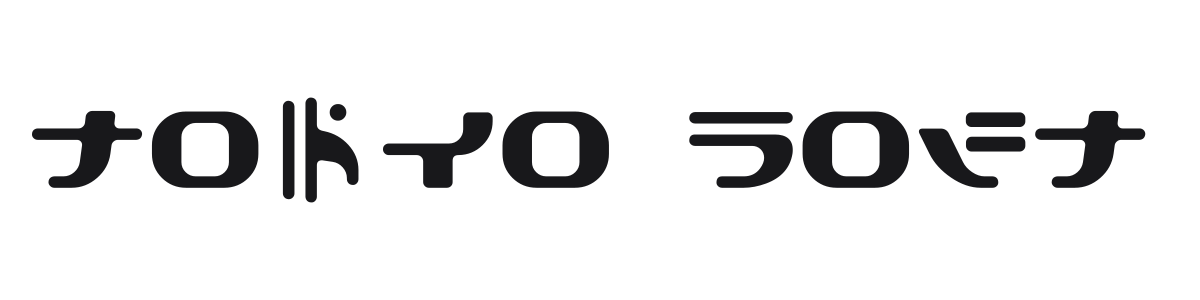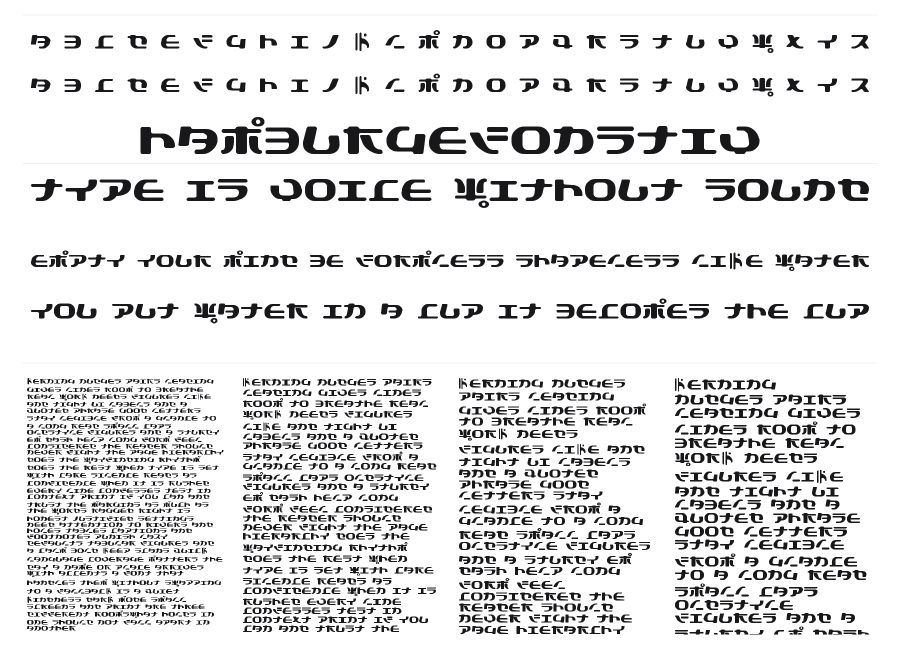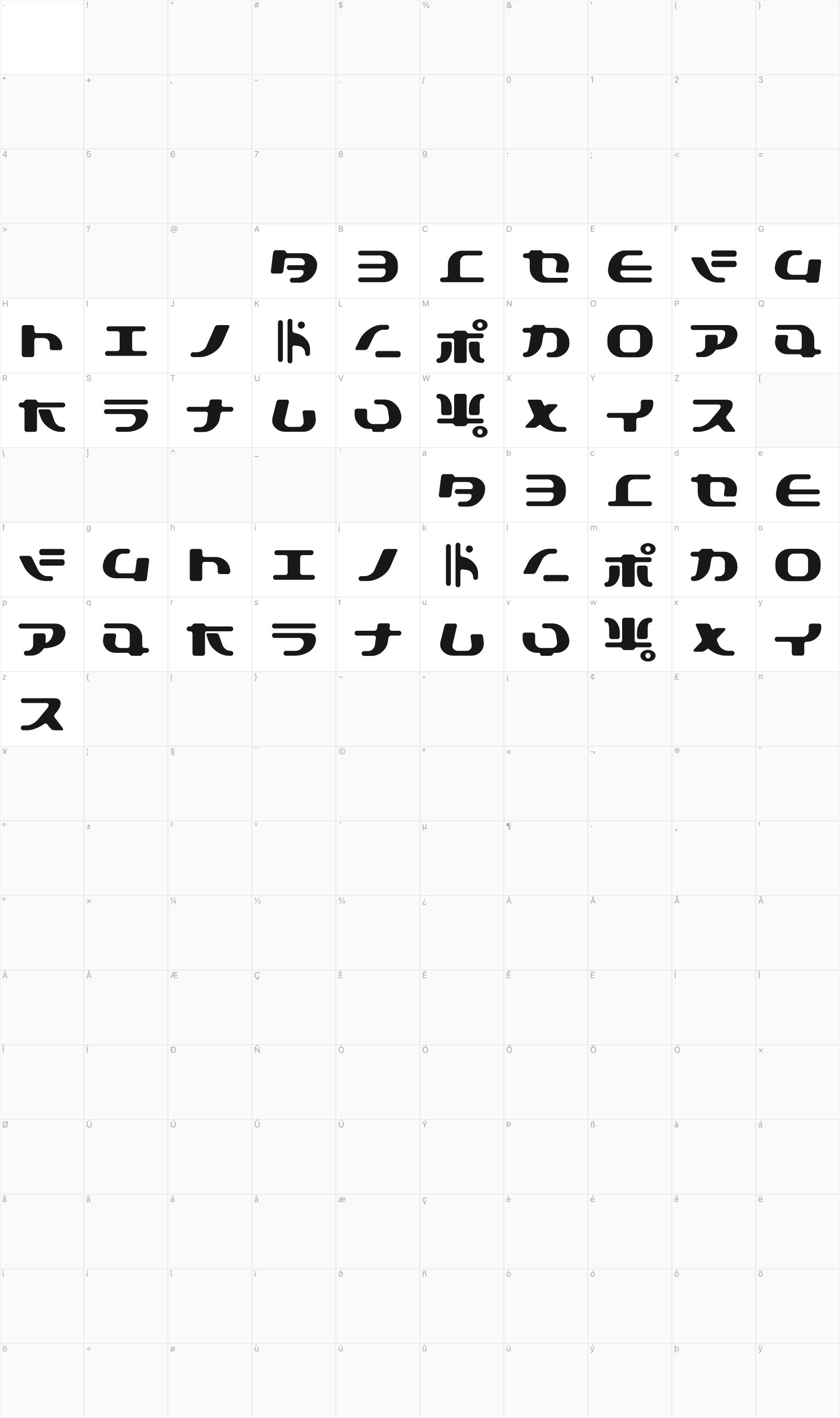
Tokyo Soft
by Shrine Of Isis Font Foudry
Tokyo Soft is a bold novelty display font that imitates the visual rhythm of Japanese katakana using Latin characters. Its chunky, near-monoweight strokes and angular-meets-rounded construction give it a retro-futuristic edge rooted in 1990s digital culture. It works at large sizes where its exotic personality can be read at a glance.